Hook
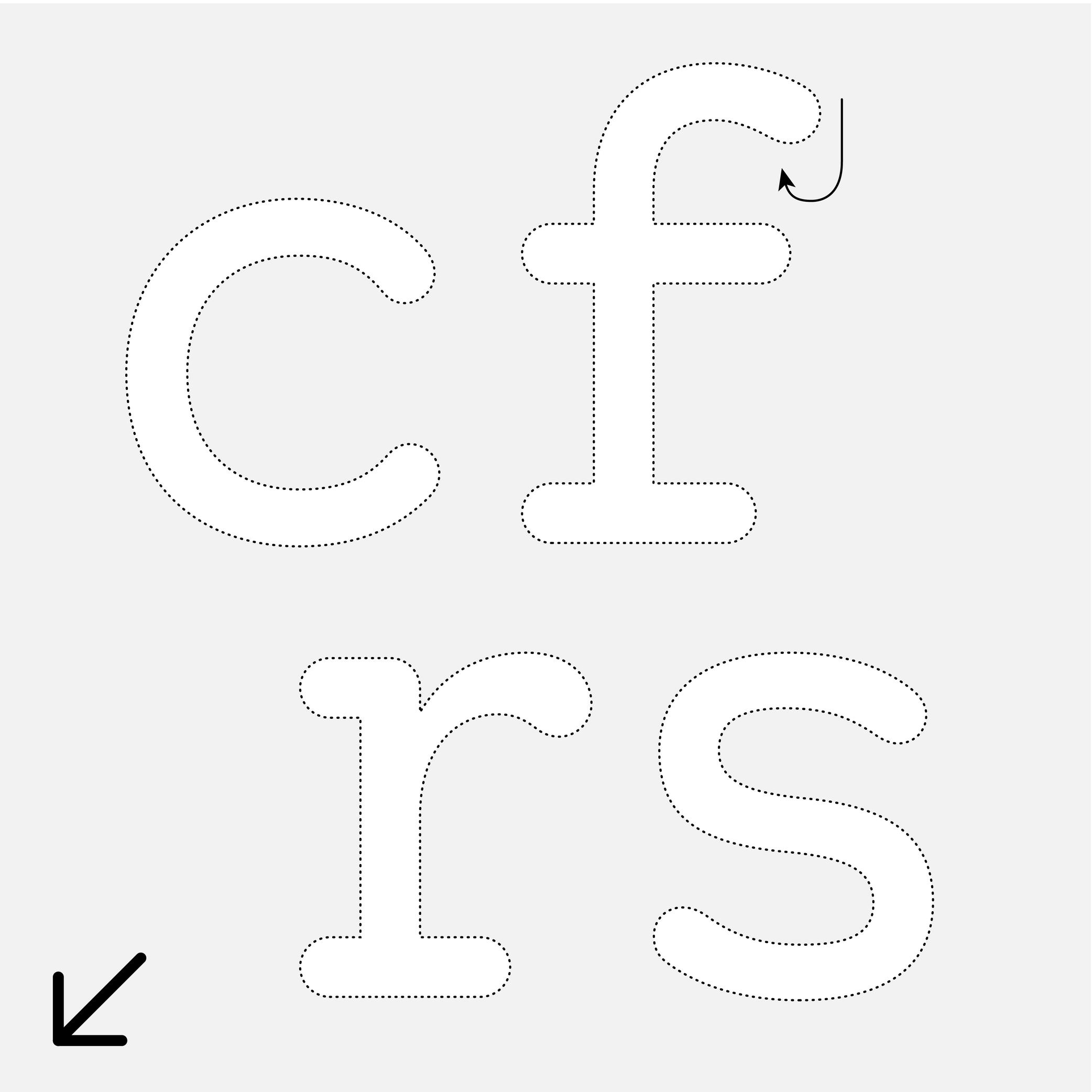
Many terms are borrowed from architecture or human and animal anatomy to designate and describe parts of letters and other characters. We even speak of type design anatomy.
In the Latin script, the hook refers to the part curling downward in letters such as c, f, r, s, etc.
Depending on the style or the shape of this part, it can also be called an ear, an arch or a (upper) terminal.